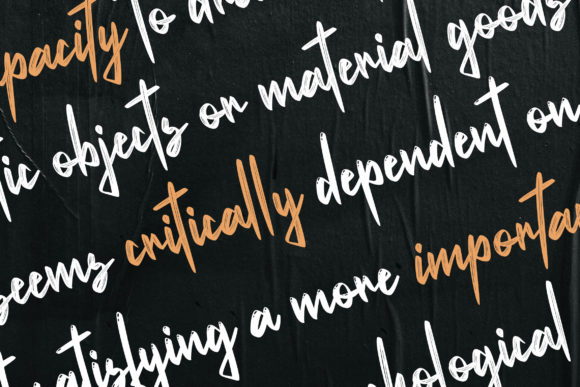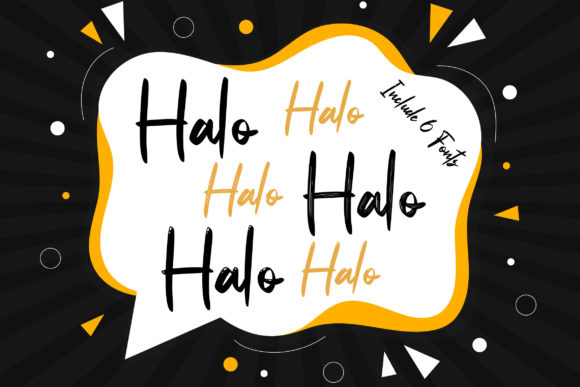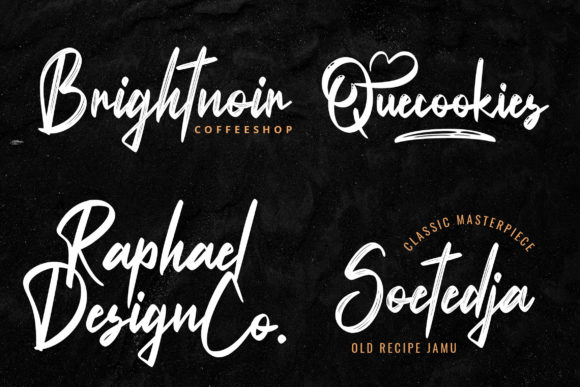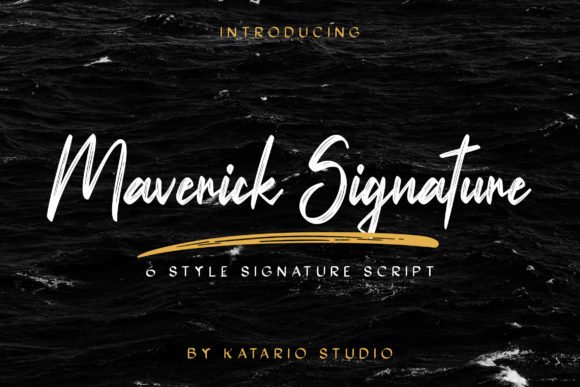
Introduction to Maverick Signature Font
Maverick Signature feels equally charming and elegant.
Key Features of Maverick Signature Font
Why Choose Maverick Signature Font?
Maverick Signature Font offers exceptional quality and versatility, making it a valuable addition to your design toolkit. Whether you’re creating for personal projects or commercial use, Maverick Signature Font delivers professional results.